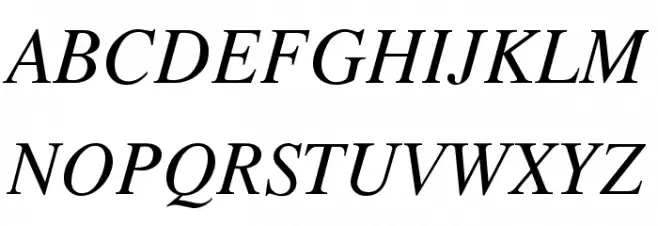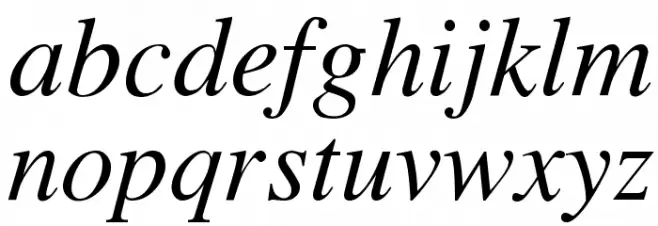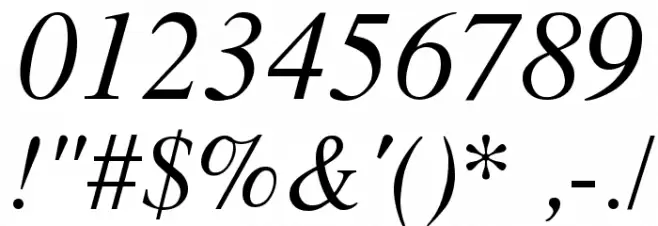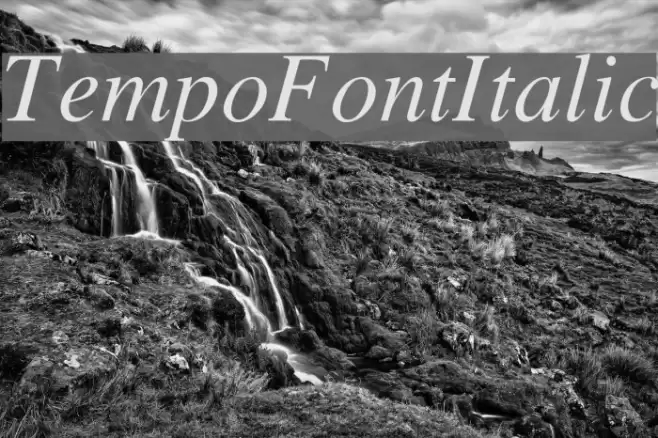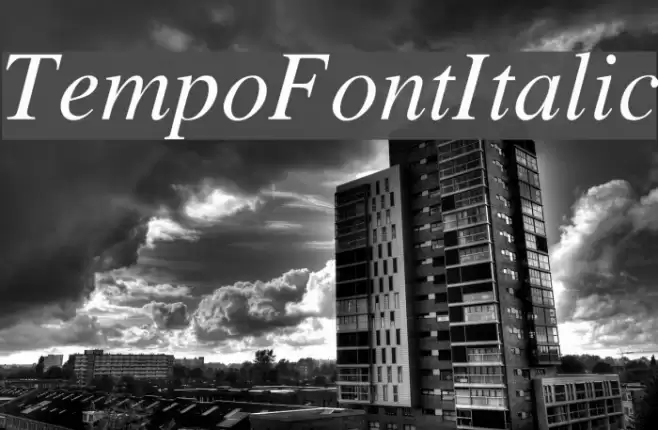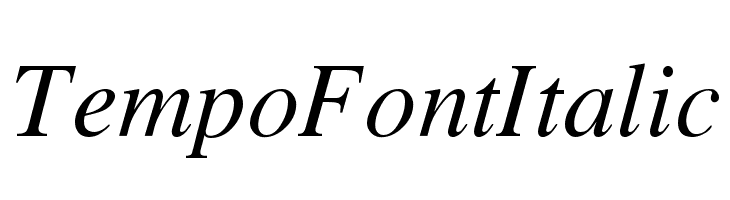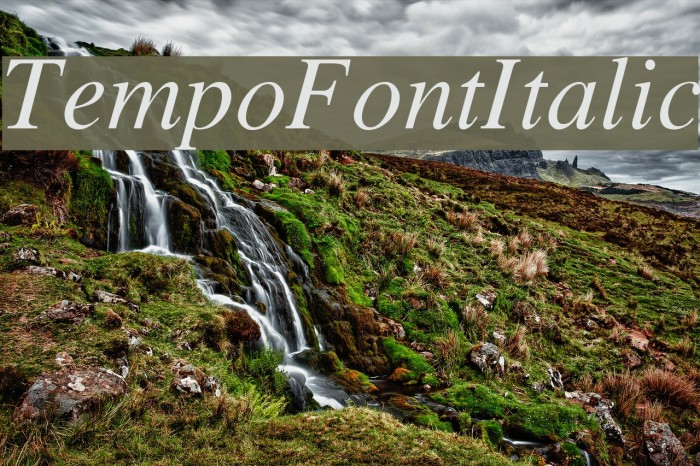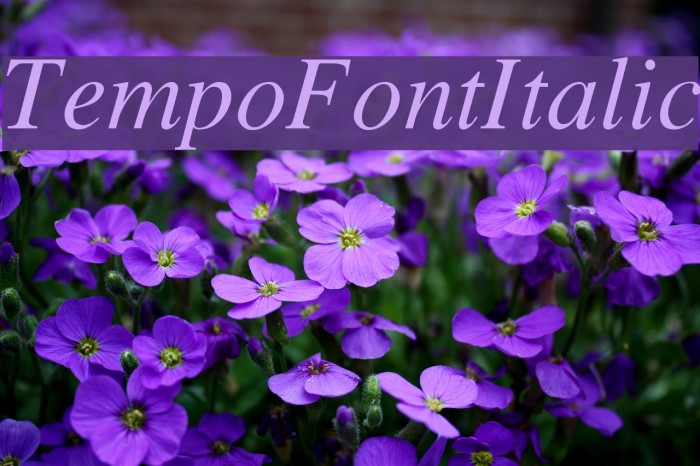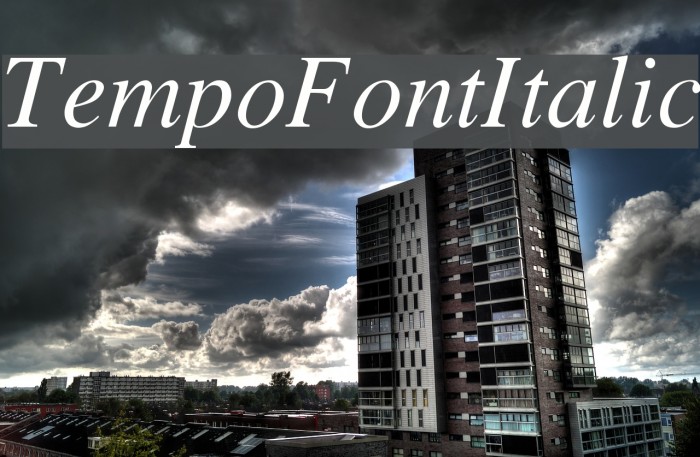
TempoFontItalic
This font features an elegant italic style with a classic serif design. The characters are slightly slanted, giving a sense of motion and sophistication. The serifs are pronounced, adding a touch of formality and tradition. The uppercase letters are well-proportioned, while the lowercase letters maintain a smooth flow. Numbers are clear and distinct, making them easily readable. Special characters are designed with the same attention to detail, ensuring consistency throughout the typeface. This font is suitable for projects that require a refined and professional appearance.
An elegant italic serif font with a classic and sophisticated style.
- Proposed Projects: Ideal for formal invitations, editorial design, branding, and elegant packaging.
- Category: Serif
- Overall Style: Classic